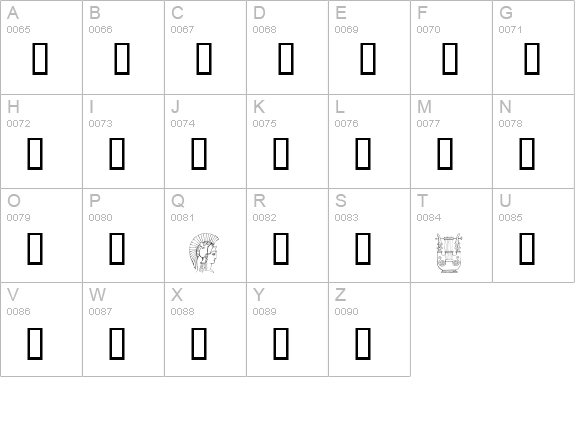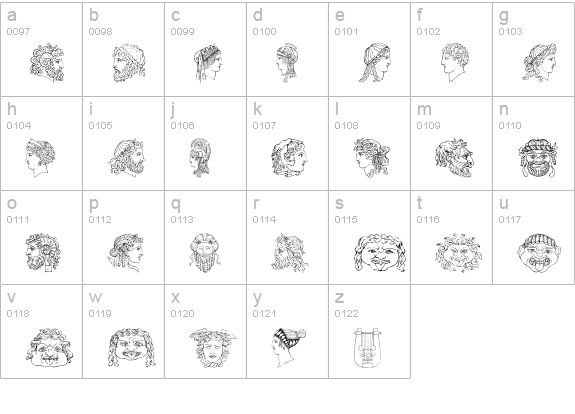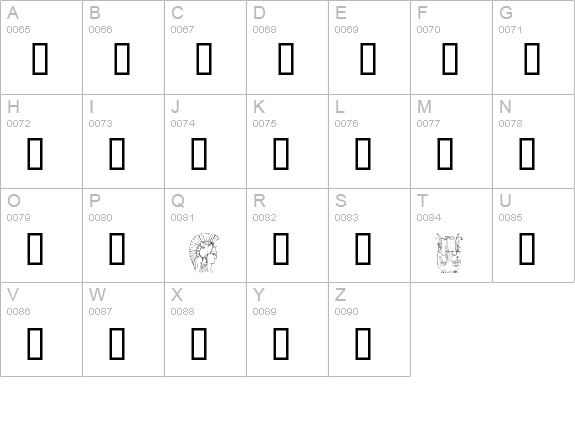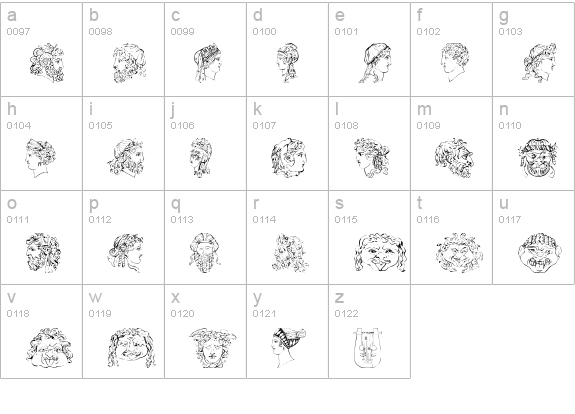
Ancient Heads Font Details
Ancient Heads font is a captivating and mystical typeface inspired by ancient civilizations and historical artifacts. Its intricate and ornate design exudes a sense of mystery and grandeur, making it perfect for projects that require a touch of antiquity and sophistication. The intricate details and unique characters of this font are sure to make your text stand out and leave a lasting impression on viewers. Best of all, Ancient Heads font is completely free to download at FontsMarket.com. Whether you're working on a historical project, designing a logo, or creating eye-catching graphics, this font is a versatile and timeless choice that will elevate your work to the next level. Download Ancient Heads font today and add a touch of ancient charm to your designs.